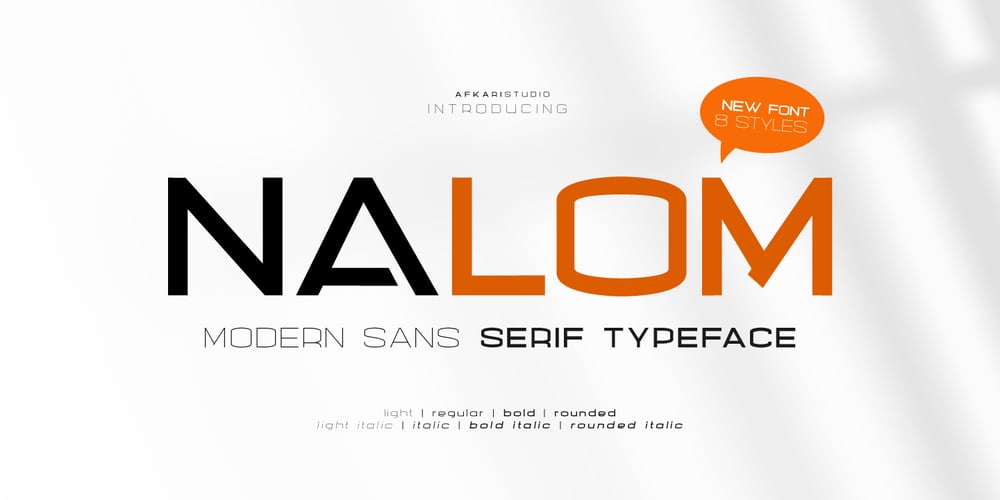
Nalom Font Family was designed by Musthafa Kamal Emje and published by Afkari Studio. Nalom contains 8 styles and family package options. Nalom is a modern sans serif typeface font family . The family consist of 8 weights; light, regular, bold, rounded, italic, light italic, bold italic and rounded italic. It comes in uppercase and lowercase with special alternate and ligatures. This modern family font are great for user interfaces, logotypes, short text, long text, magazines etc.Features; 8 Weights; Nalom Light, Nalom Light Italic, Nalom Regular, Nalom Italic, Nalom Bold, Nalom Bold Italic, Nalom Rounded, Nalom Rounded Italic. Uppercase, Lowercase, Number and Punctuation Works on PC & Mac Simple installations Accessible in the Adobe Illustrator, Adobe Photoshop, Adobe InDesign, even work on Microsoft Word Fully accessible without additional design software. Mültîlíñgúãl Sùppört for; ä ö ü Ä Ö Ü ß ¿ ¡ Hope you enjoy with our font and this font usefull font your projets!